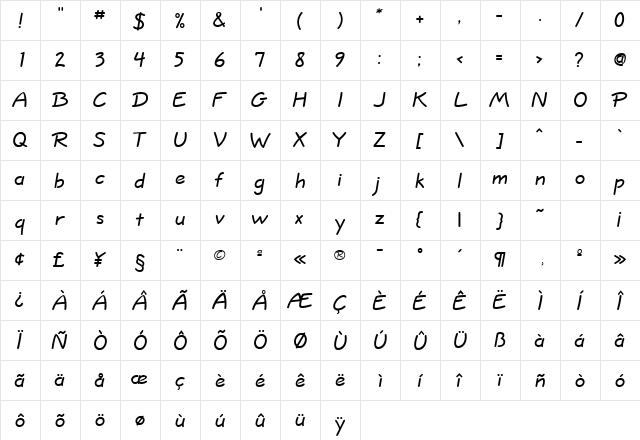
Informa SSi Bold Font Preview
Informa SSi Bold
Informa SSi Bold Font Details
Design Context for Informa SSi Typeface
Informa SSi is a composed and adaptable typeface that performs quietly and consistently across a wide range of design contexts. Its bold stroke weight gives it real presence on the page.